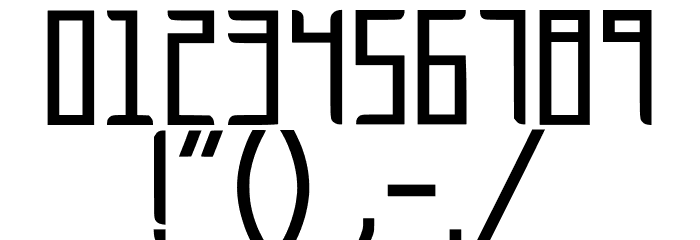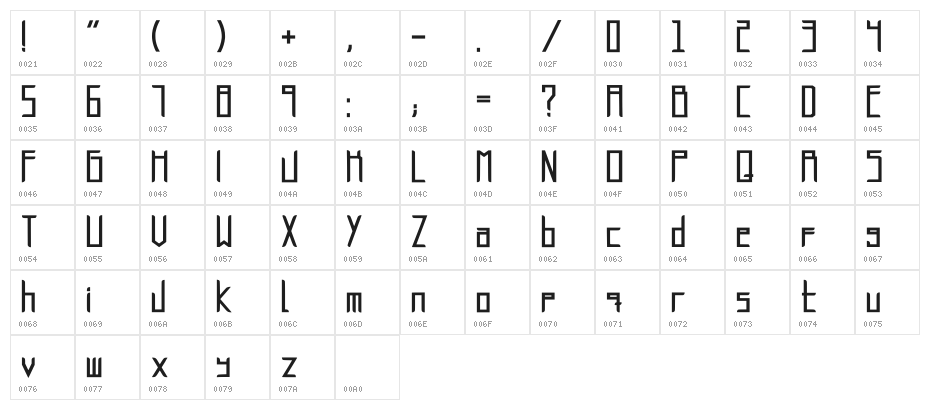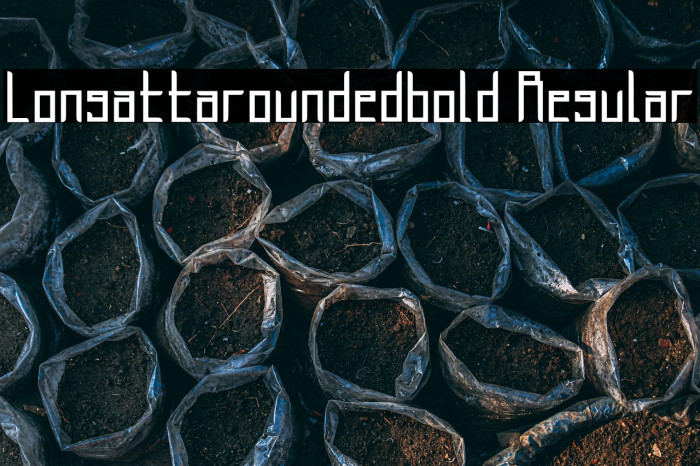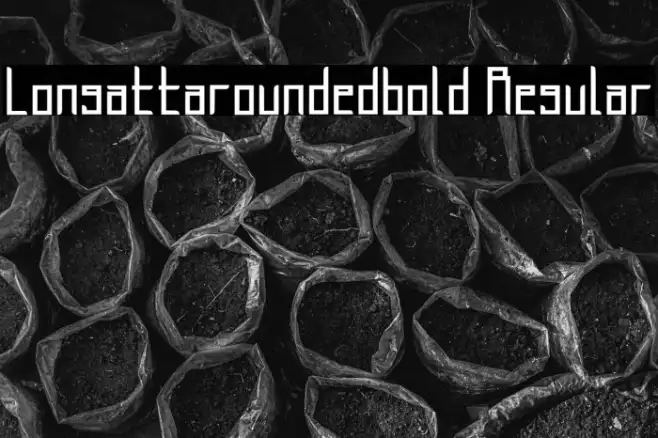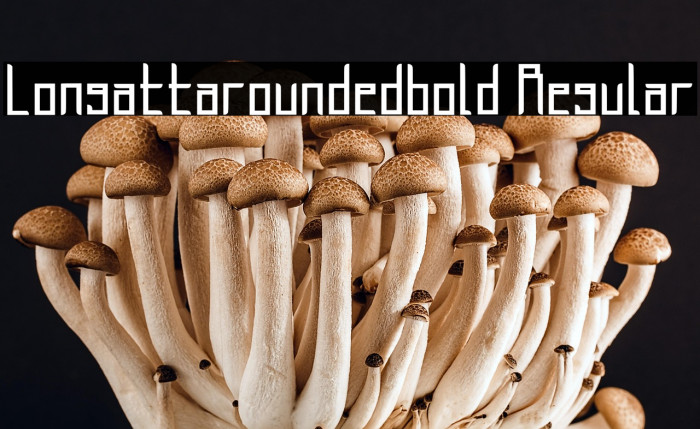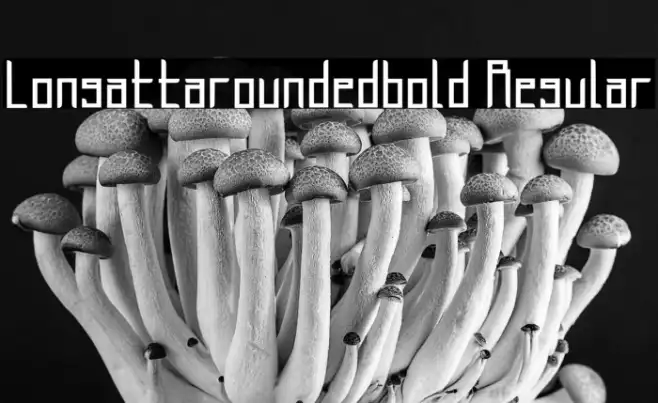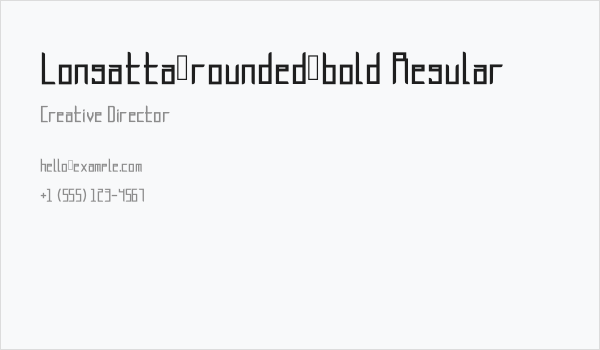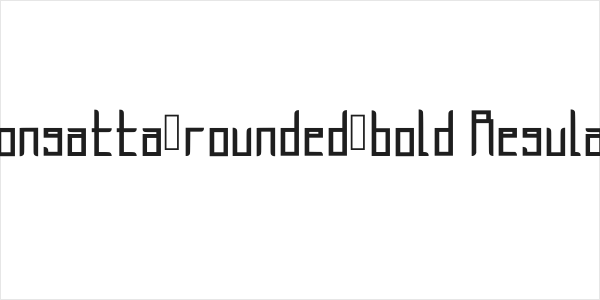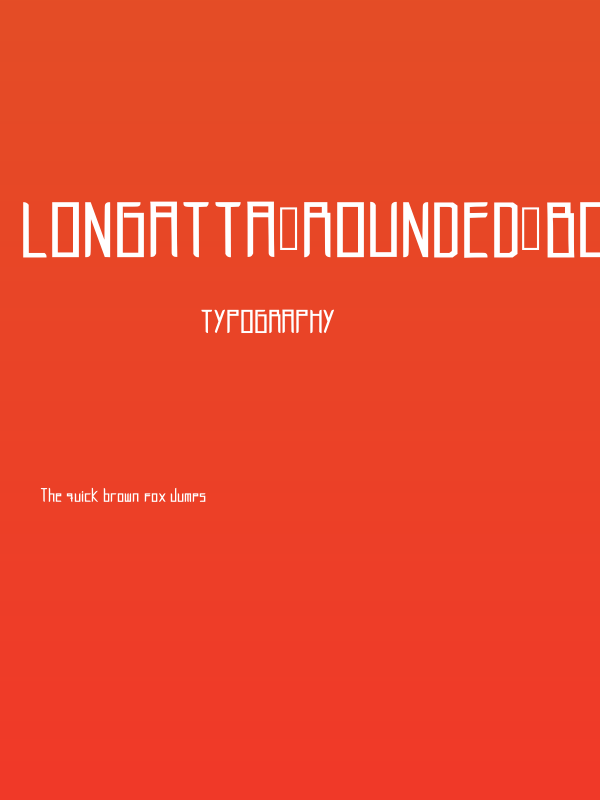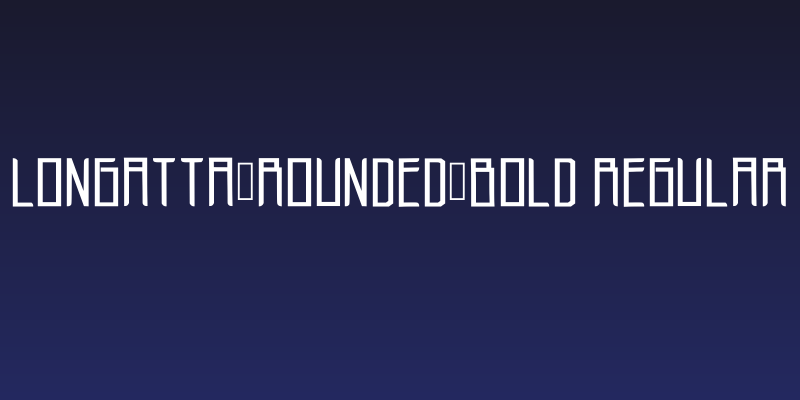
Longatta_rounded_bold Regular Font
Longatta_rounded_bold Regular Description
This font features a unique blend of geometric and rounded elements, creating a modern and approachable aesthetic. The characters are bold with consistent stroke widths, giving them a strong presence. The rounded corners soften the overall look, making it suitable for a variety of applications. The uppercase and lowercase letters maintain a uniform style, while the numerals and special characters complement the alphabet with their cohesive design. The font's structure is clean and legible, with a contemporary flair that makes it versatile for both digital and print media.
| Proposed Projects | Ideal for branding, headlines, posters, and digital media where a modern and approachable look is desired. |